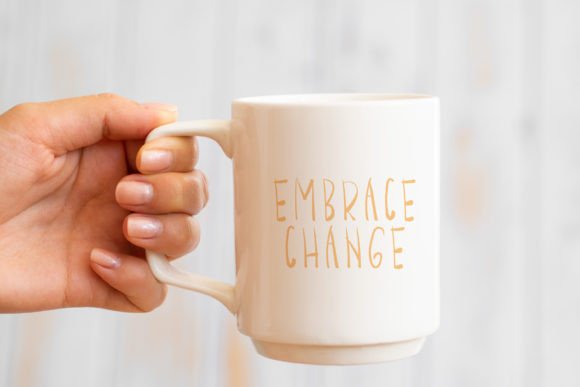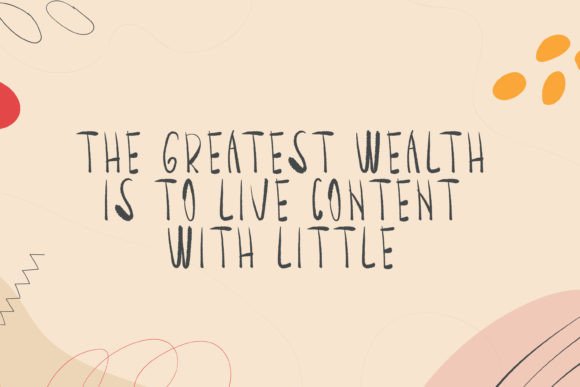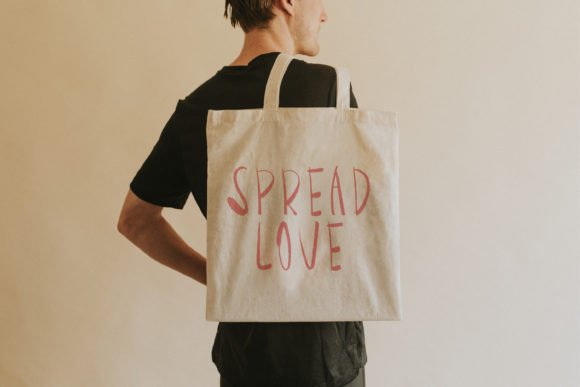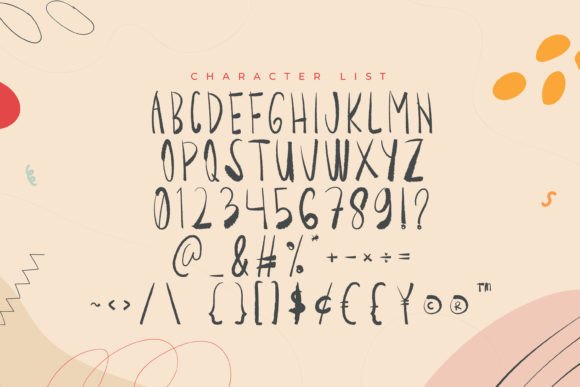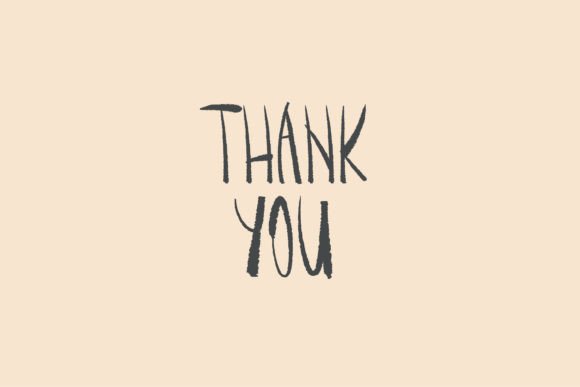
Forever Young Font: The Perfect Choice for Playful and Creative Projects
Are you looking for a font that embodies trendiness and authenticity, perfect for children activities or school projects? Look no further than the Forever Young Font. This playful and cute display font is designed to bring a sense of fun and creativity to your designs, making it an ideal choice for designers and crafters alike.
What is Forever Young Font?
Forever Young Font is a display font that is specifically designed to be used in creative and playful projects. Its unique and trendy design makes it perfect for a variety of applications, from children’s activity sheets and school projects to craft tutorials and DIY blogs.
Key Features of Forever Young Font
- Playful and Cute Design: Forever Young Font features a playful and cute design that is sure to capture the attention of your audience.
- Trendy and Authentic: This font embodies trendiness and authenticity, making it perfect for projects that require a modern and fresh feel.
- Highly Readable: Despite its playful design, Forever Young Font is highly readable, even at small sizes.
- Versatile: This font can be used in a variety of projects, from digital designs to print materials.
Uses for Forever Young Font
Forever Young Font is a versatile font that can be used in a variety of projects, including:
- Children’s Activity Sheets: This font is perfect for creating fun and engaging activity sheets for kids.
- School Projects: Forever Young Font is a great choice for school projects, such as posters, presentations, and reports.
- Craft Tutorials: This font is ideal for craft tutorials and DIY blogs, adding a playful touch to your instructions.
- Digital Designs: Forever Young Font can be used in digital designs, such as social media graphics, blog posts, and email newsletters.
Tips for Using Forever Young Font
Here are some tips for using Forever Young Font in your projects:
- Use it in Headlines: Forever Young Font is perfect for use in headlines, where its playful design can really shine.
- Pair it with Other Fonts: This font pairs well with other fonts, such as serif fonts, to create a visually appealing design.
- Experiment with Colors: Forever Young Font looks great in a variety of colors, so don’t be afraid to experiment and find the perfect color for your project.
In conclusion, Forever Young Font is a playful and cute display font that is perfect for children activities or school projects. Its trendy and authentic design makes it a great choice for designers and crafters alike. With its highly readable design and versatility, Forever Young Font is sure to become a favorite in your font collection.